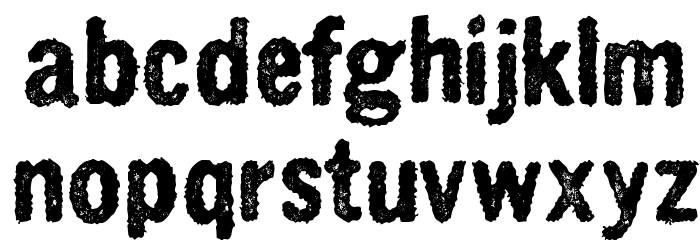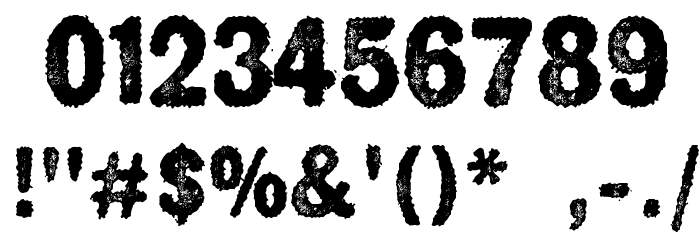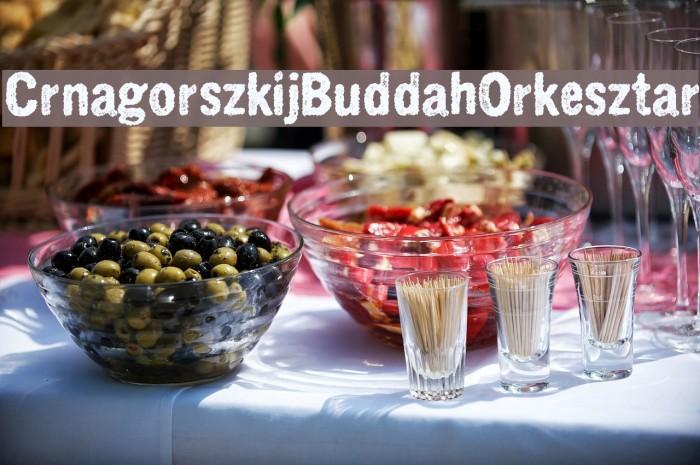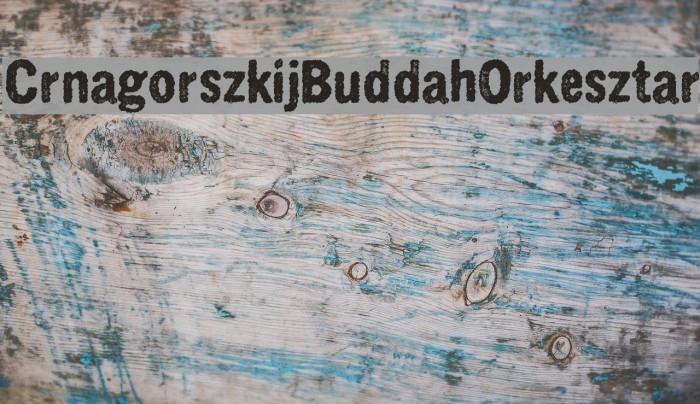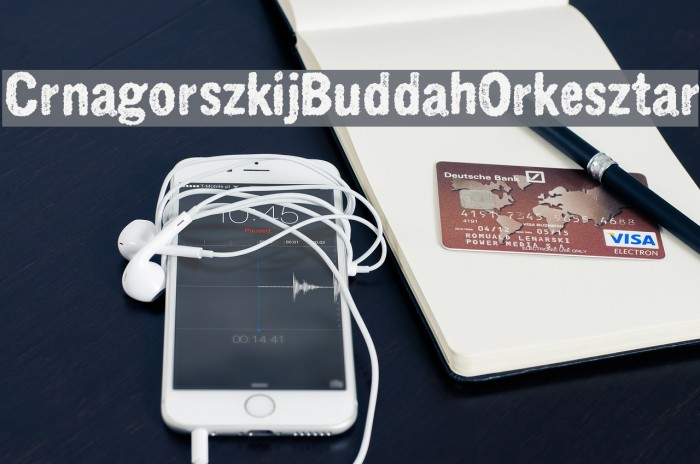
CrnagorszkijBuddahOrkesztar Font
This font features a bold, textured appearance with a distressed, grunge-like style. The characters are heavily weighted, giving them a strong presence on the page. The texture within each letter adds a unique, rugged charm, making it stand out in any design. The uppercase and lowercase letters maintain consistent proportions, while the numbers and special characters follow the same stylistic approach. This font is ideal for projects that require a bold statement or an edgy, artistic touch.
A bold, textured font with a distressed, grunge style.
- Proposed Projects: Ideal for album covers, posters, branding for edgy products, or any design needing a bold, artistic statement.